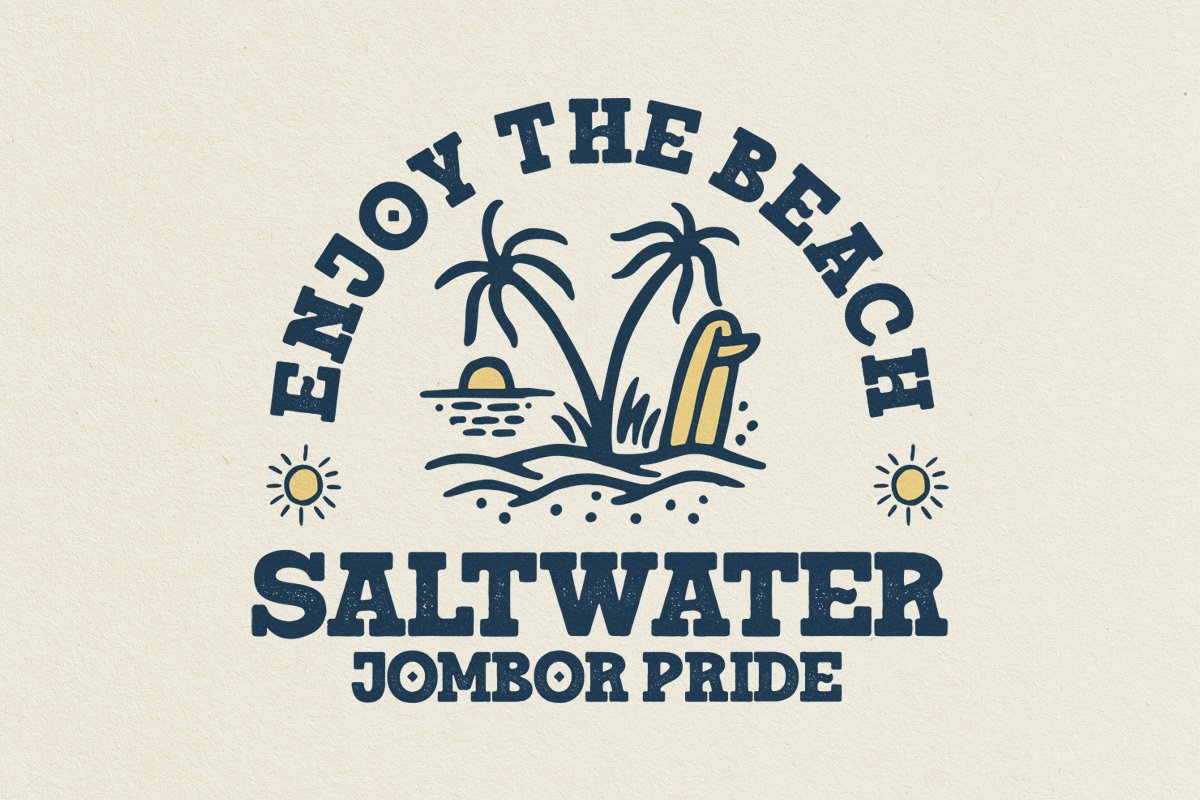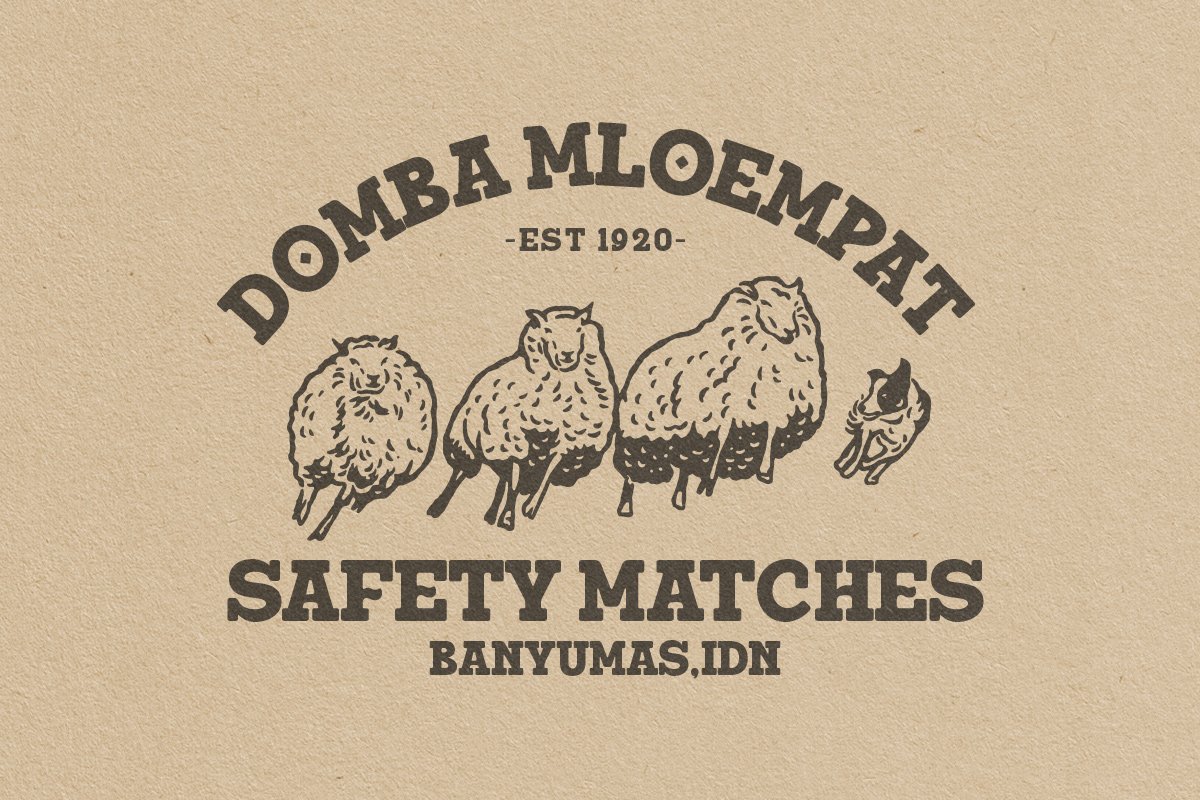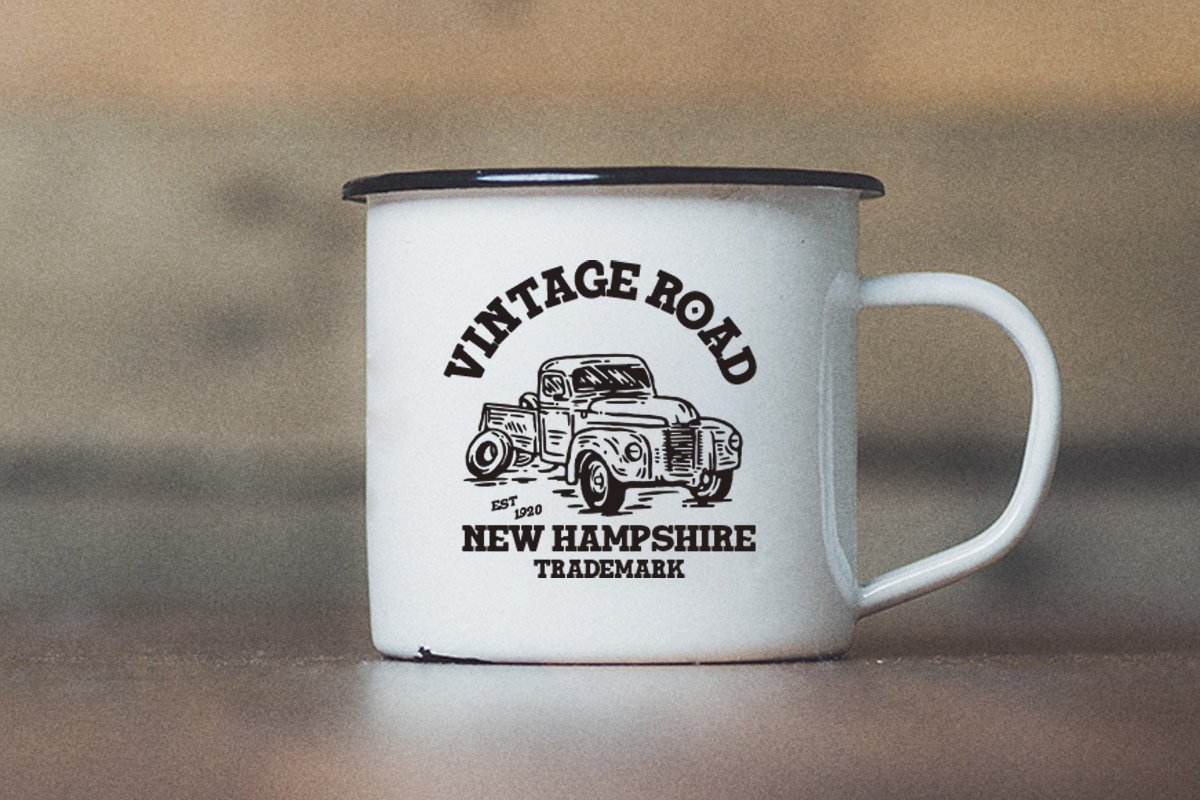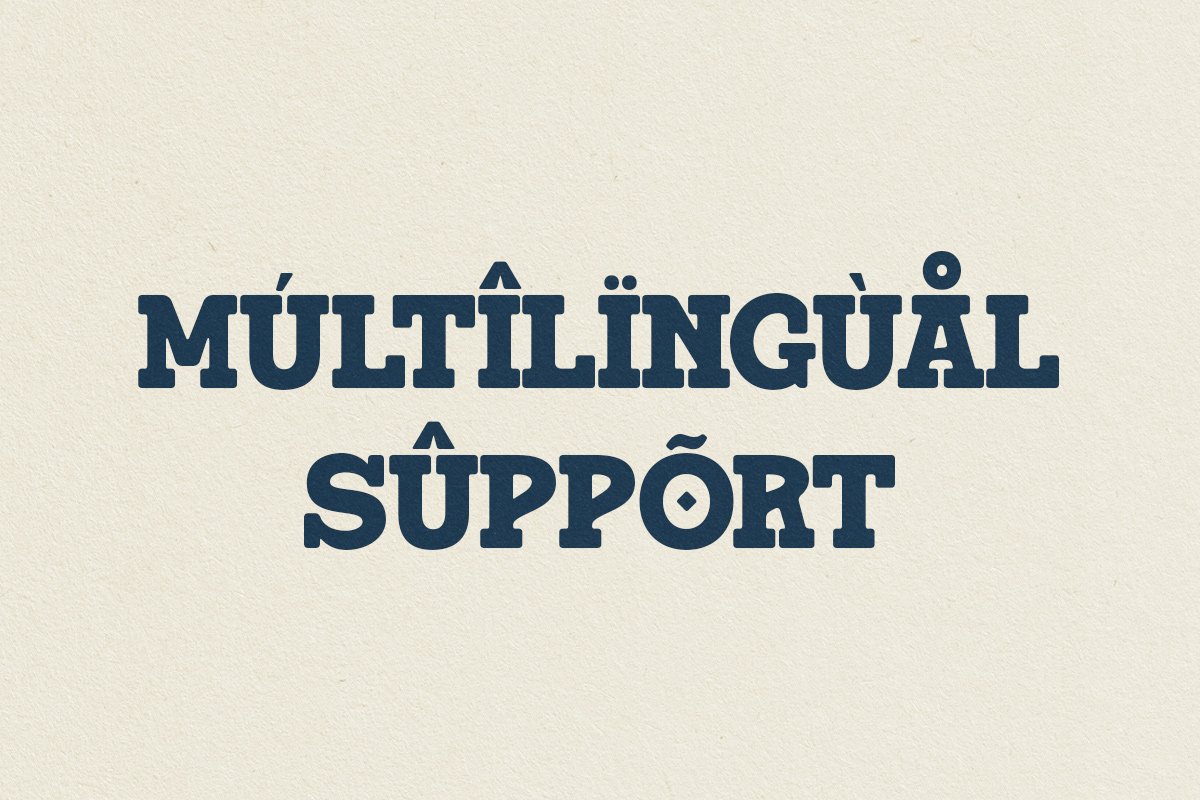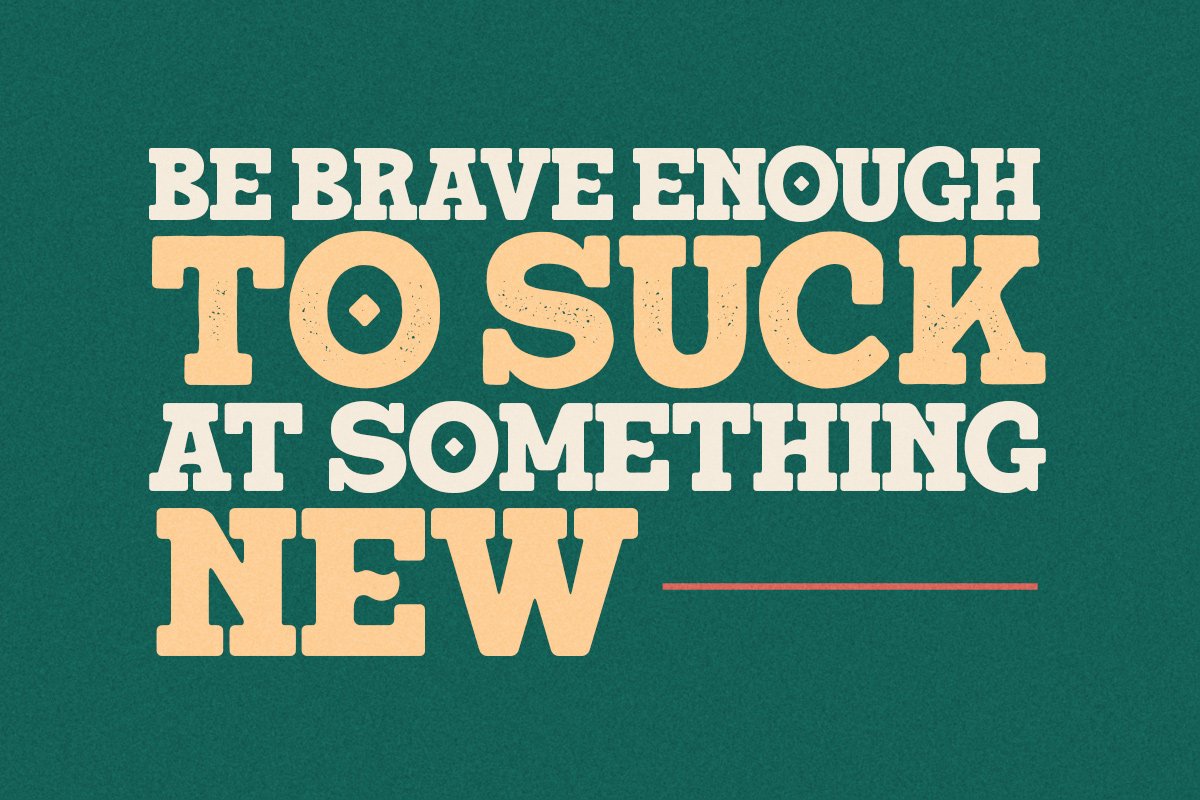
About the South Montana Slab Serif Font
Introducing, South Montana. South Montana is a bold slab serif that comes with regular and rough style. this font is perfect for every project. suitable for branding logo, badge design, or apparel design. this font also comes with multilingual support.
South Montana Slab Serif Font